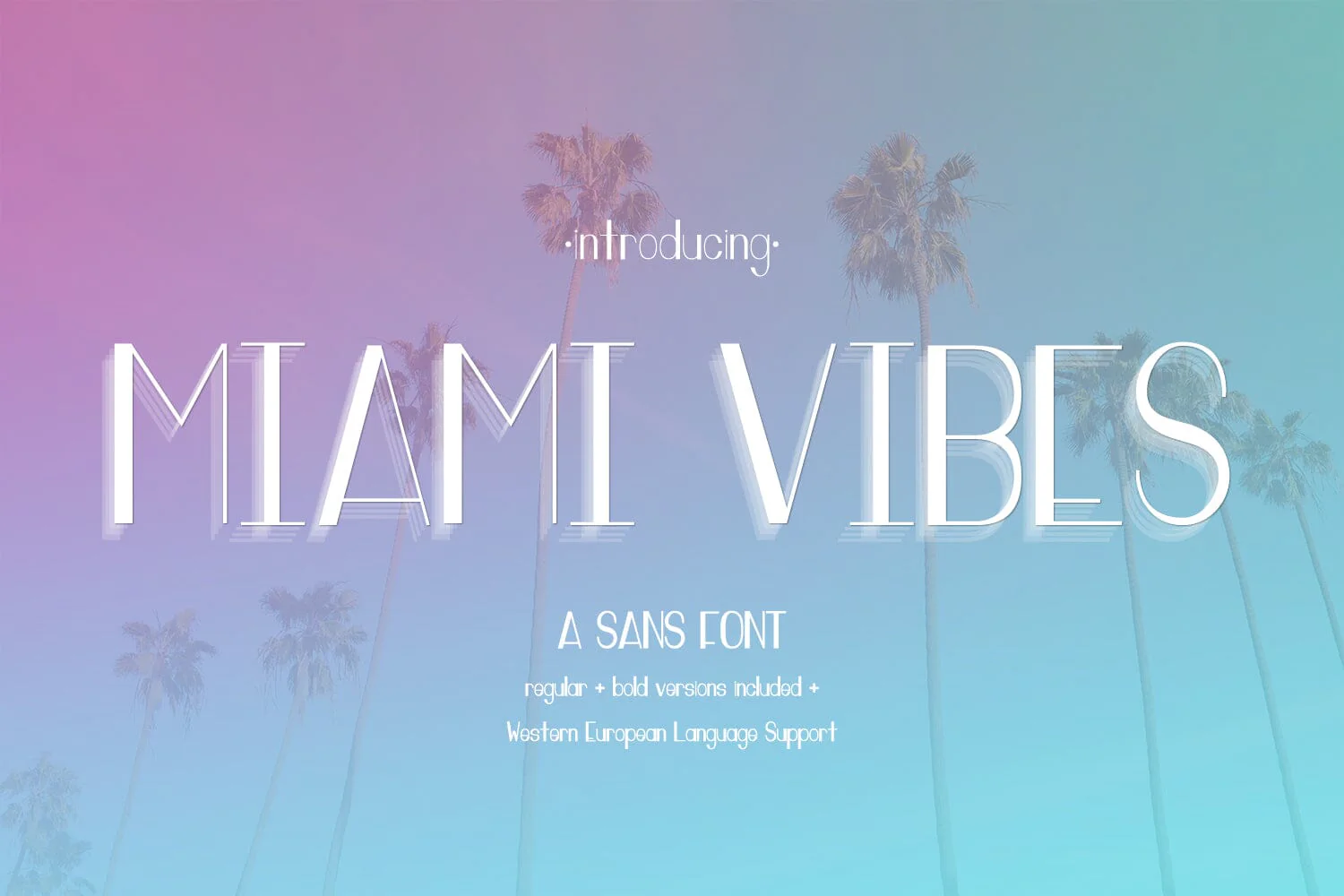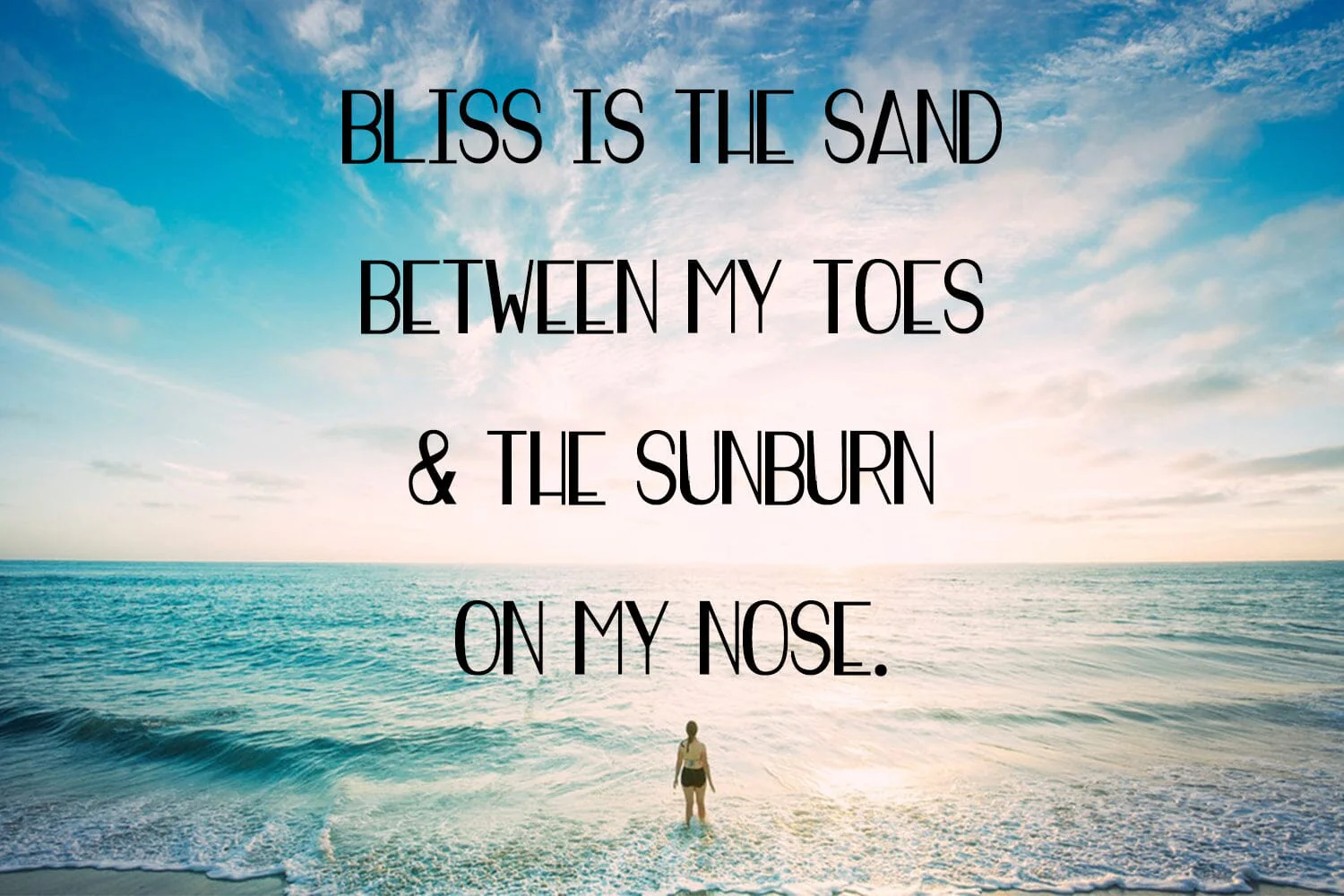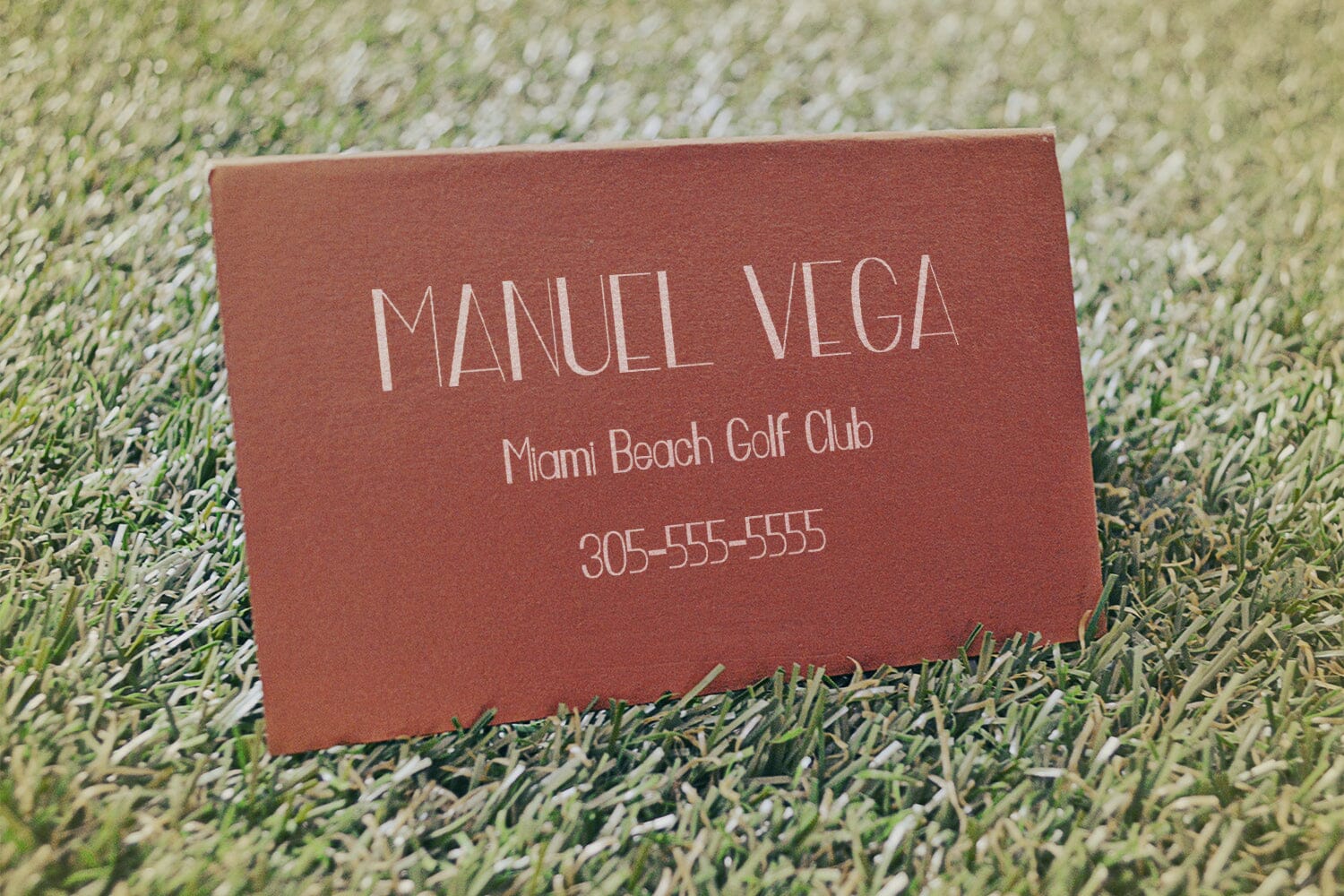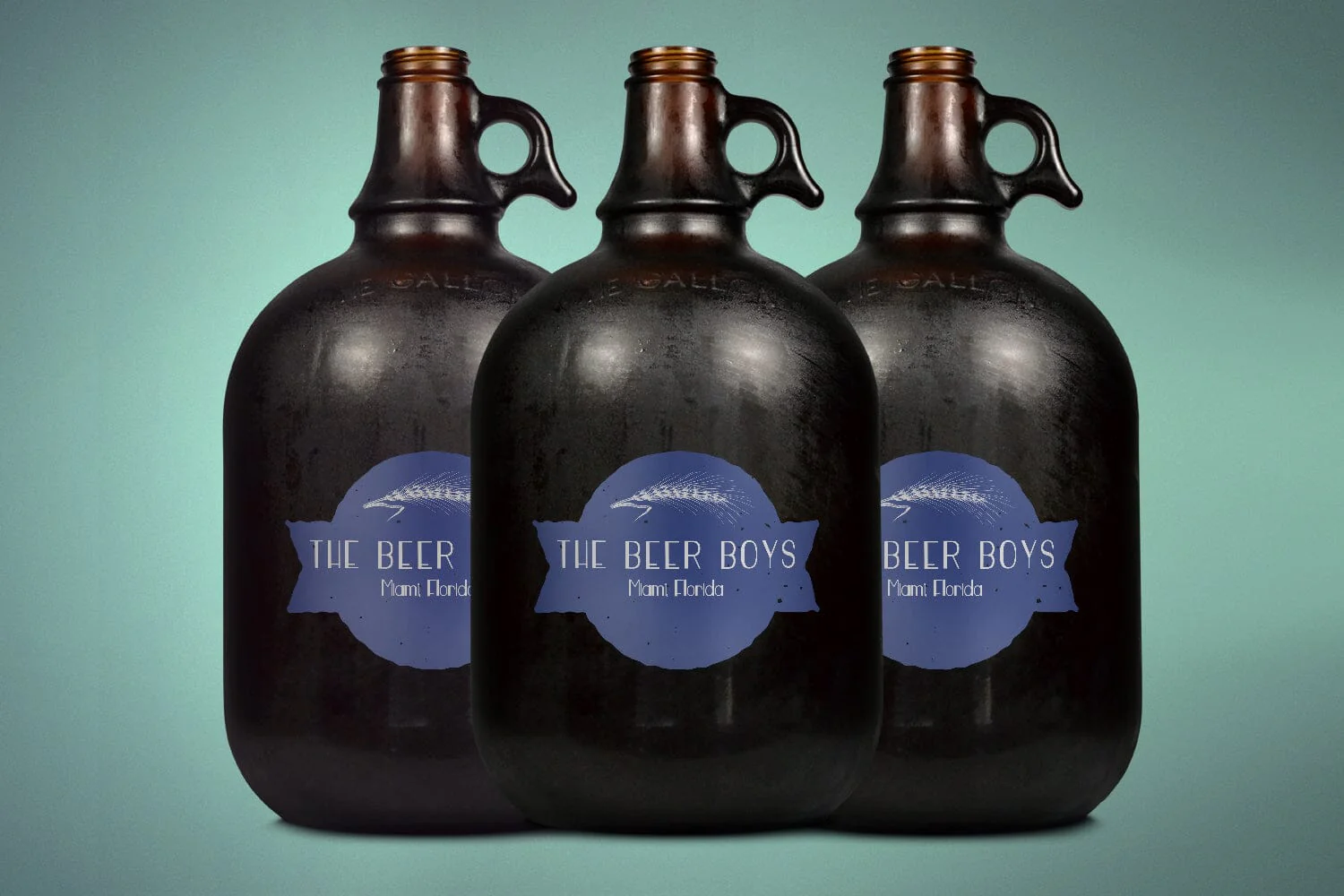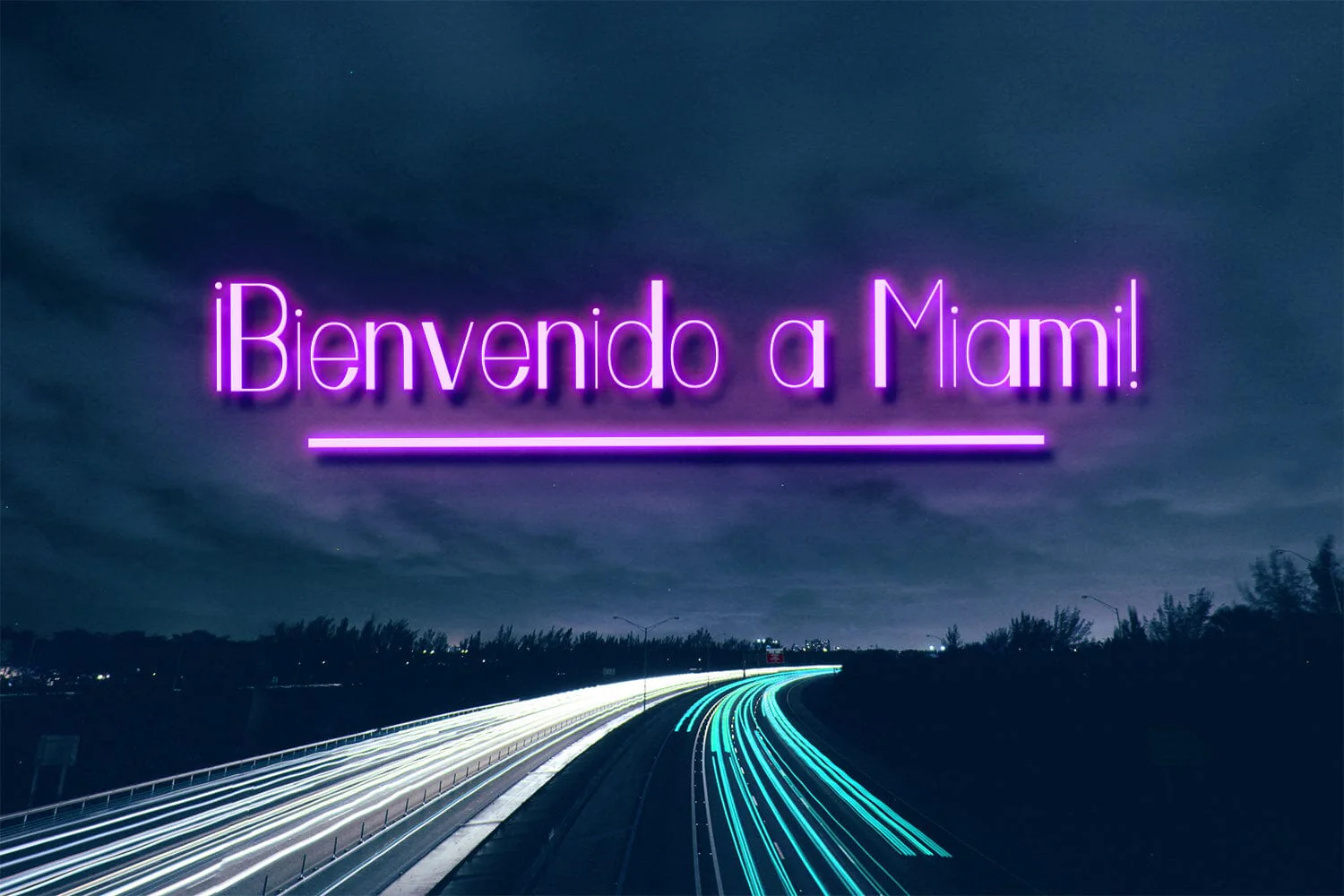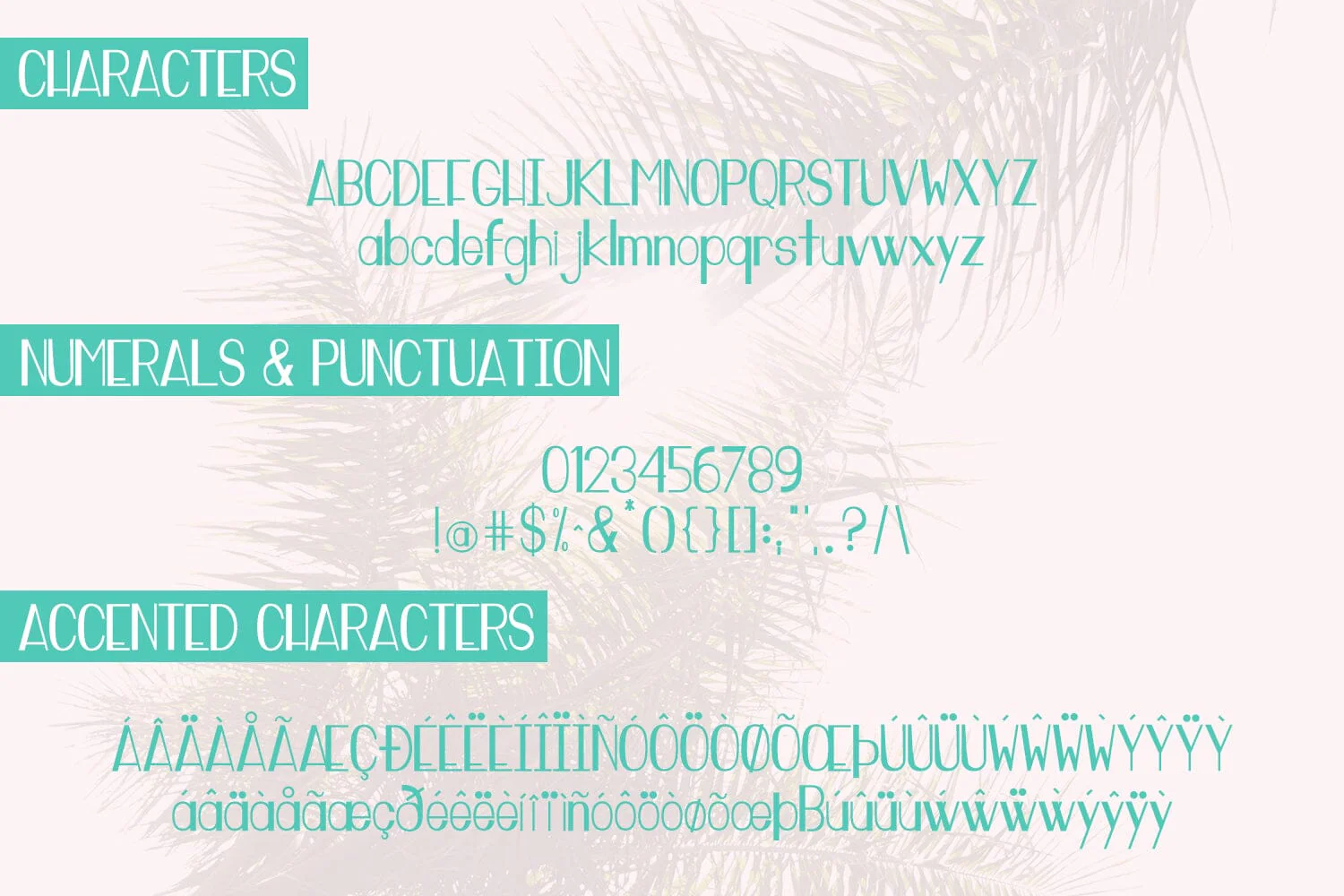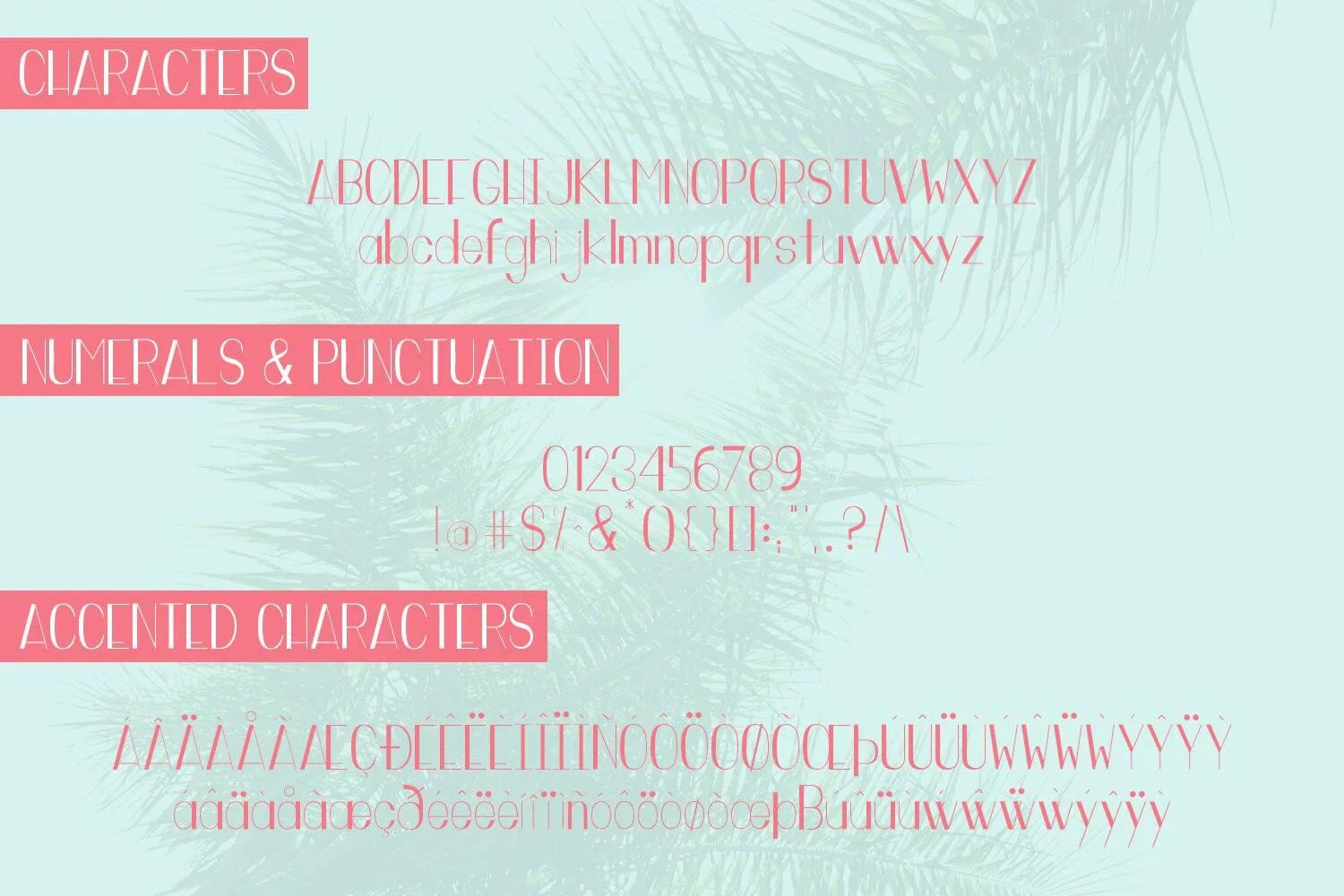
Miami Vibes Art Deco Sans Font
Miami Vibes is a clean, art deco style sans font, inspired by the melting pot city. Miami is the perfect mixture of old & new, cultures & traditions. It’s bright, crisp, and edgy with the perfect amount of attitude — that special quality that *really* catches your attention.
Miami Vibes includes a regular & a bold version, and also includes Western European language support.
Miami Vibes is a clean, art deco style sans font, inspired by the melting pot city. Miami is the perfect mixture of old & new, cultures & traditions. It’s bright, crisp, and edgy with the perfect amount of attitude — that special quality that *really* catches your attention.
Miami Vibes includes a regular & a bold version, and also includes Western European language support.